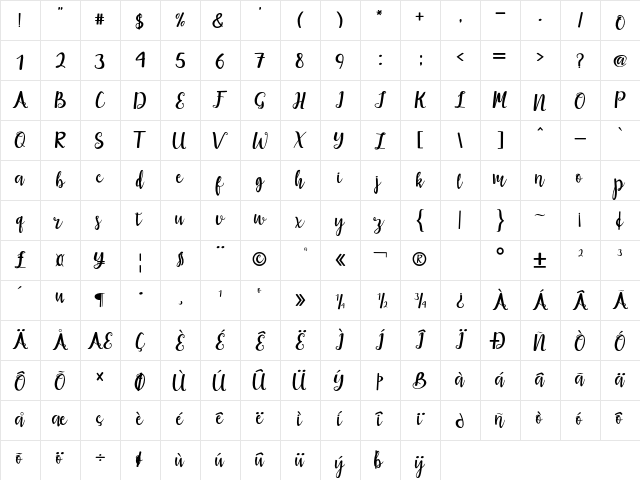
maisha flows with the natural rhythm of handwritten lettering, making it ideal for designs that call for warmth and personal expression.
Font Pairing: Combine maisha with a simple geometric sans for maximum contrast - the tension between flowing curves and clean structure is a classic typographic pairing.
Pro Tip: Use maisha for short runs of text - names, titles, or taglines. Extended body copy in script faces tires the eye quickly.